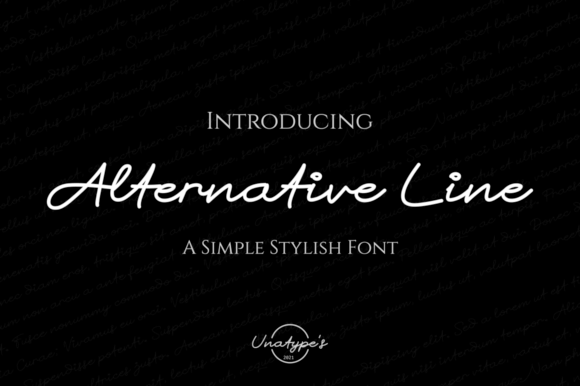
Font name: | Alternative Line |
Author: | Onne Hermawan |
Alternative Line is a monoline script font with cursive style, many characters are smoothly connected. This lovely typeface is great for designers who are seeking a natural and authentic style in their creations! NOTES: By installing or using this font, you are agree to the Product Usage Agreement: 1. This font is only for PERSONAL USE. NO COMMERCIAL ARE USE ALLOWED. 2. You are requires a license for PROMOTIONAL or COMMERCIAL use. below the link for the full version and commercial use : https://www.creativefabrica.com/product/alternative-line/ref/185557/ To donate simply click my donation button above or follow this link : https://paypal.me/hermaone1 any donation are very appreciated. Thank you ==== INDONESIA: Dengan meng-install font ini, anda dianggap mengerti dan menyetujui semua syarat dan ketentuan penggunaan dibawah ini: 1. Font ini hanya dapat digunakan untuk keperluan "Personal Use", atau untuk keperluan yang sifatnya tidak "komersil", atau tidak menghasilkan profit atau keuntungan dari hasil memanfaatkan/menggunakan font ini. 2. DILARANG KERAS menggunakan atau memanfaatkan font ini untuk keperluan Komersil, baik itu untuk Iklan, Promosi, TV, Film, Video, Motion Graphics, Youtube, atau untuk Kemasan Produk (baik fisik maupun digital) atau media apapun dengan tujuan menghasilkan profit/keuntungan. 3. Menggunakan font ini untuk kepentingan komersil apapun bentuknya TANPA IZIN sama sekali tidak dibenarkan, dan anda bisa dikenakan biaya EXTENDED LICENSE atau 100 kali harga dari Lisensi Standard. More... |